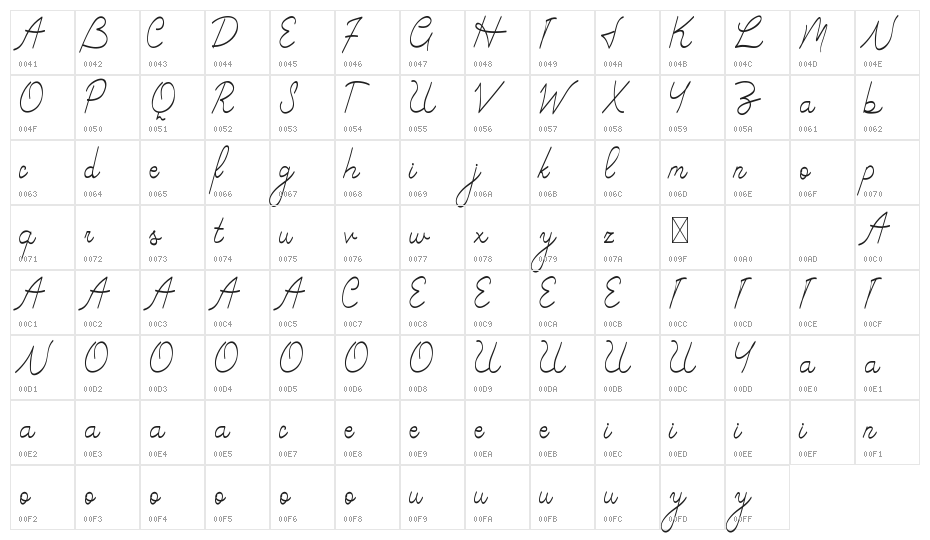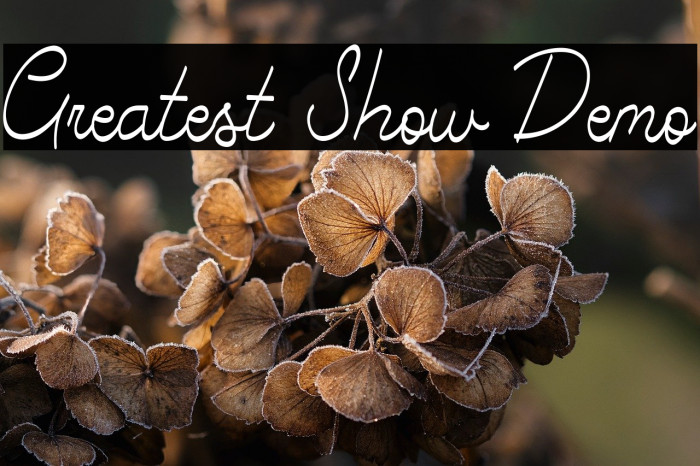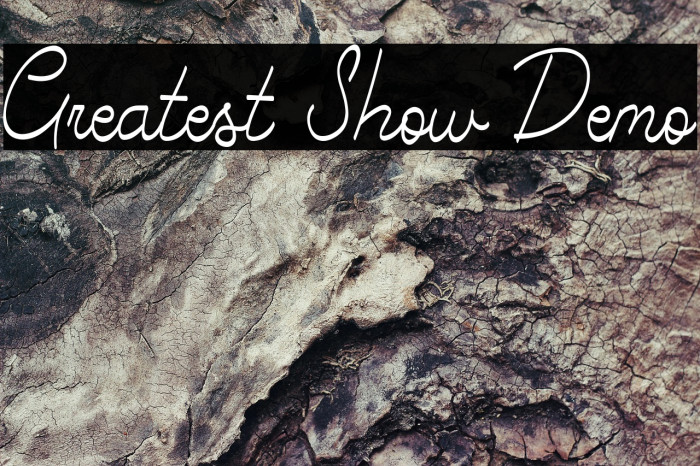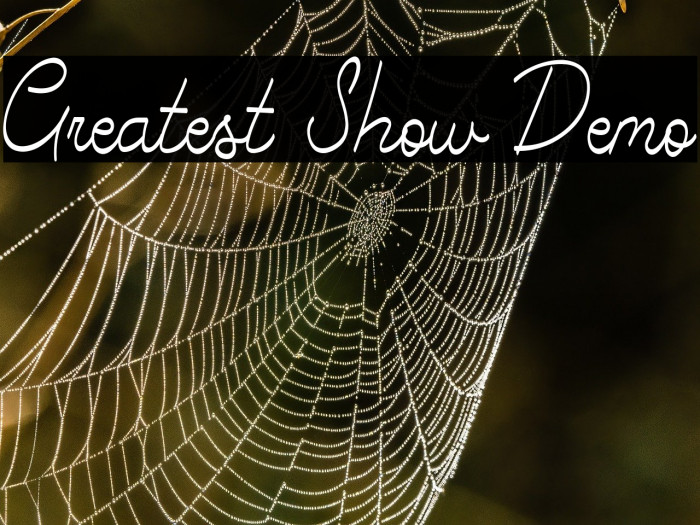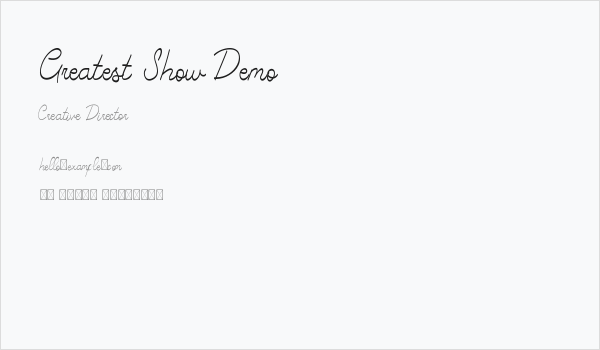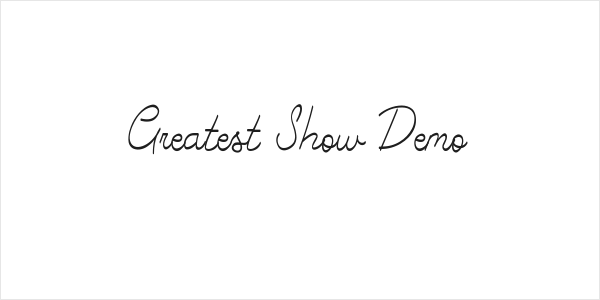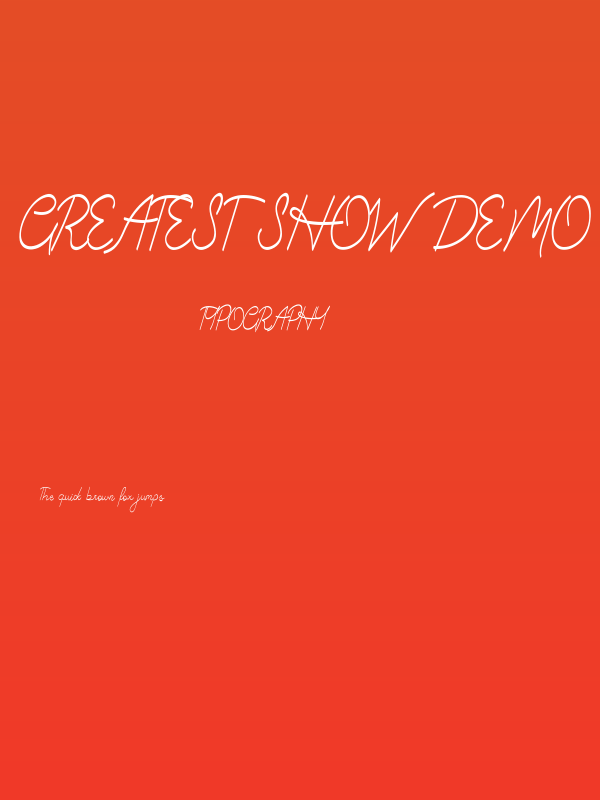
Greatest Show Demo Font
Greatest Show Demo Description
This font exhibits a dynamic and flowing script style, characterized by its elegant and cursive letterforms. The uppercase letters are tall and slightly slanted, with a consistent stroke width that gives a sense of fluidity and movement. The lowercase letters maintain a similar slant, with some characters featuring loops and flourishes that enhance the overall decorative appearance. The font's design is reminiscent of traditional calligraphy, yet it maintains a modern touch with its clean lines and balanced proportions. The spacing between characters is tight, which contributes to its cohesive and connected look. This font is ideal for projects that require a touch of sophistication and elegance, such as invitations, branding, and editorial design.